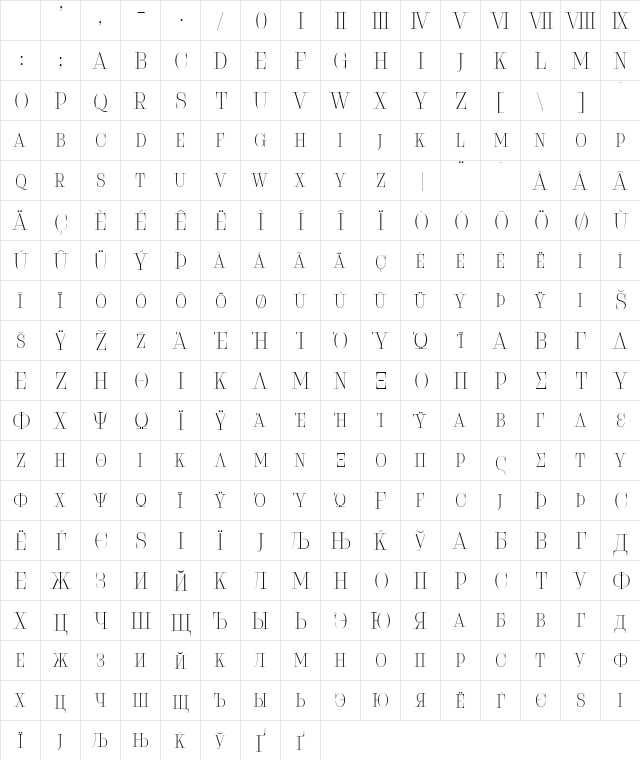
Serifiqo 4F carries the refined structure of traditional serif typography, with bracketed terminals and considered proportions that communicate credibility and craft.